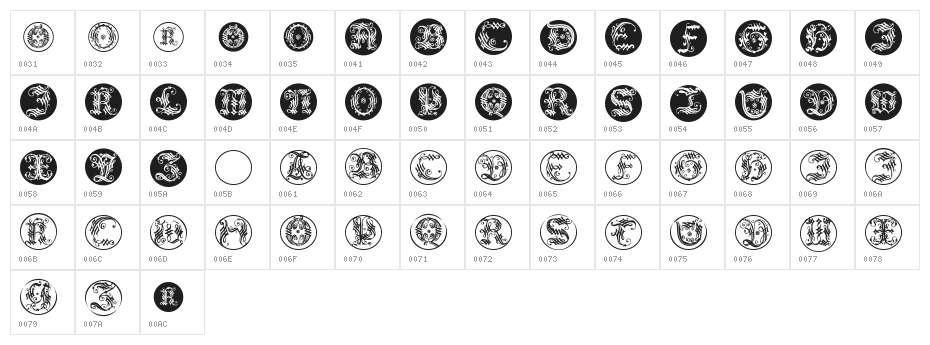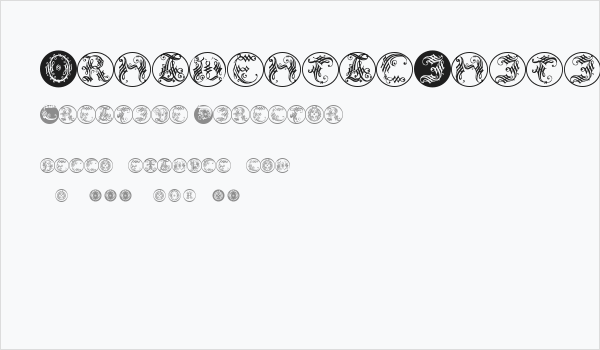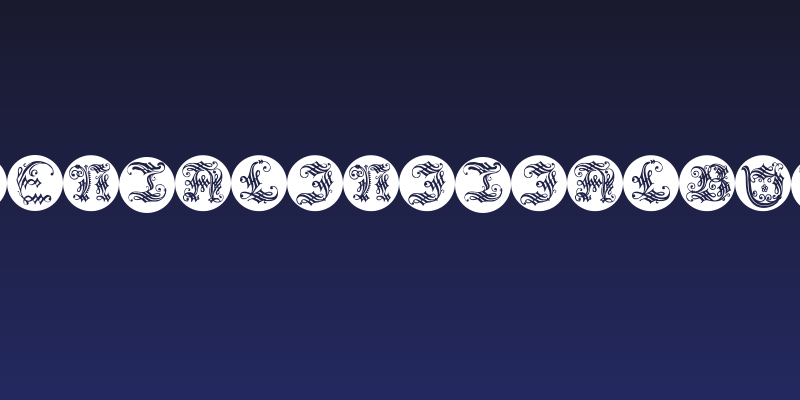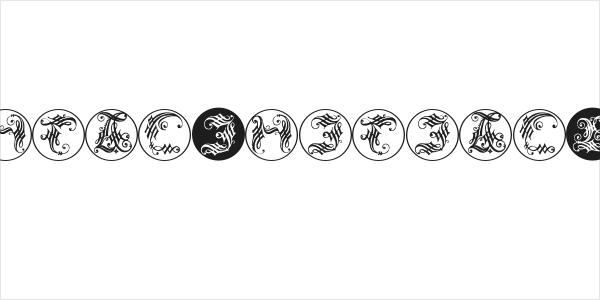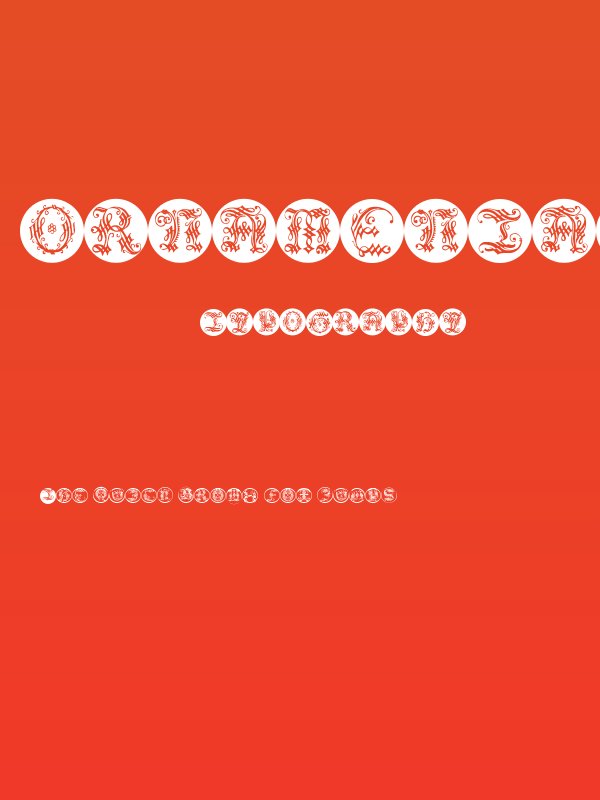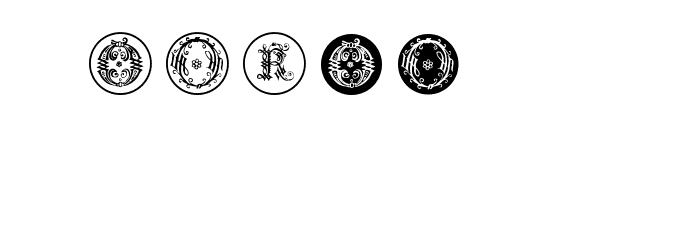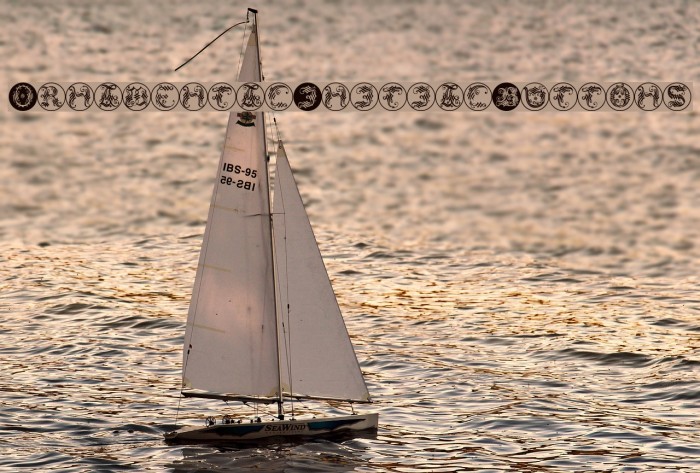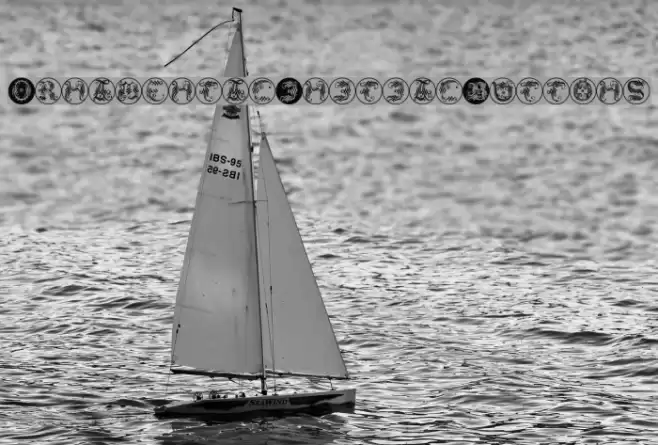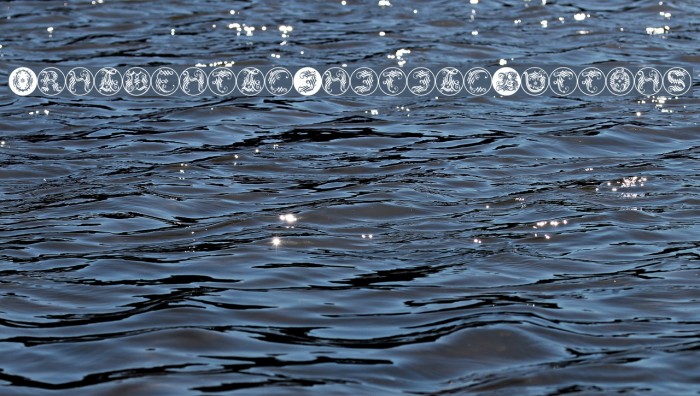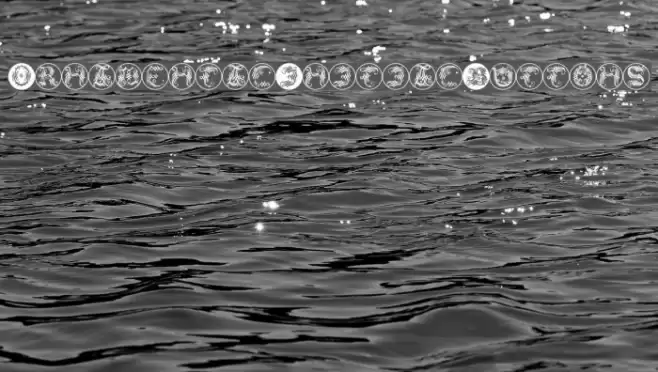
OrnamentalInitialButtons Font
✎ Gothic
| Категория | Gothic |
| Общий стиль | Vintage |
| Область применения | Logos, Decorative headings, Artistic designs |
| Рекомендуемые проекты | Ideal for wedding invitations, vintage-themed branding, decorative posters, and artistic projects that require a touch of elegance. |